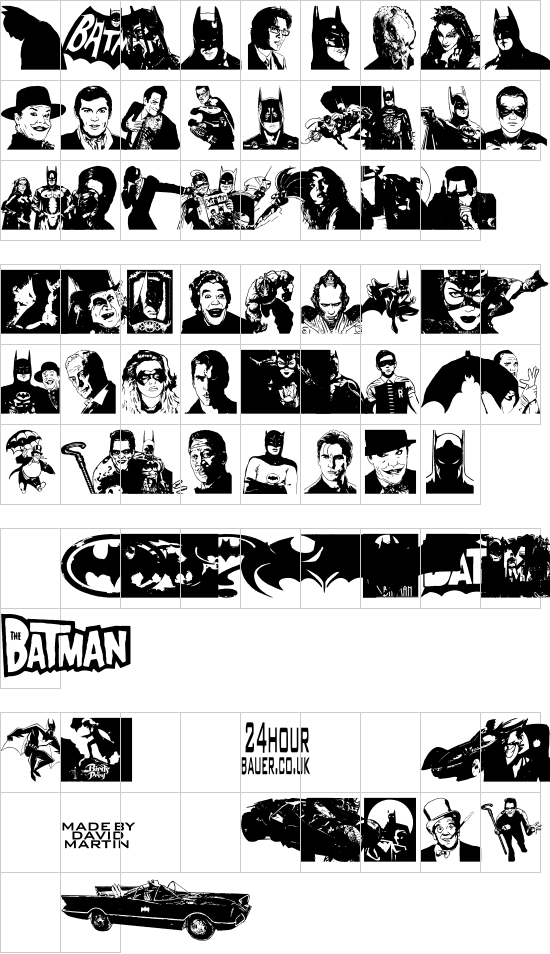
Batman The Dark Knight is a dingbat font featuring icons and symbols drawn from the famous caped crusader's gritty cinematic world. The glyphs deliver bat emblems, themed marks, and dark motifs rendered with the brooding, dramatic edge of the films rather than the brighter comics.